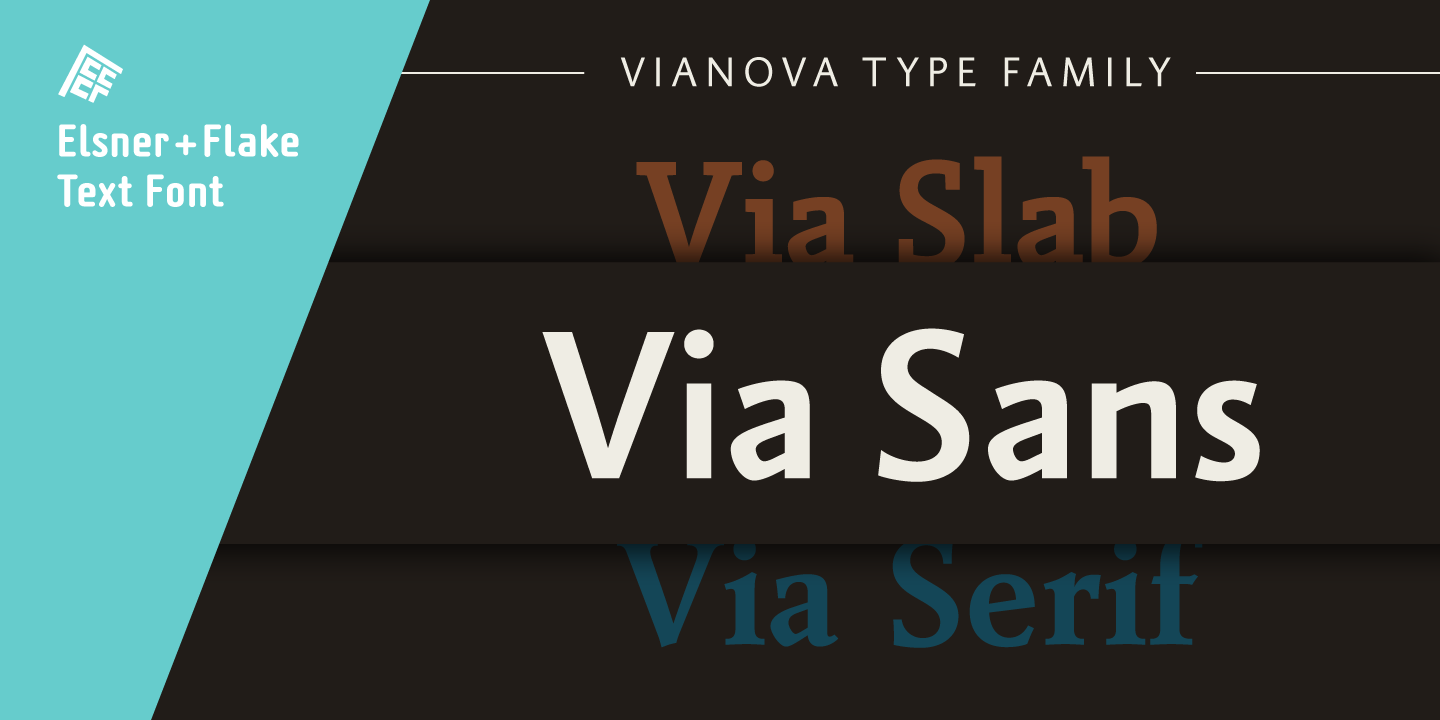
This innovative typeface is perfect for modern architecture firms, cutting-edge technology companies, contemporary design studios, innovation consulting, futuristic transportation, progressive healthcare brands, advanced manufacturing, sustainable energy solutions, modern educational institutions, forward-thinking corporations, digital transformation agencies, and next-generation lifestyle brands. The font's progressive design makes it ideal for projects that celebrate innovation, technological advancement, and the bold vision of organizations pioneering new pathways into the future.
Vianova Sans Pro Font is exciting because it embodies forward-thinking innovation and contemporary sophistication through its clean letterforms and future-inspired character structure. The font's geometric precision and modern proportions create an atmosphere of progress, technological excellence, and visionary thinking, making it perfect for brands that want to convey innovation, professionalism, and the cutting-edge appeal of advanced solutions. Its progressive personality ensures instant credibility while maintaining excellent readability across various contemporary applications.
The Vianova Sans Pro Font family includes multiple innovative variations: Light Vision, Regular Progress, Medium Innovation, Bold Future, and Black Revolutionary weights, each available in standard and condensed versions. Special modern editions feature technical alternates, innovation symbols, and contemporary ornaments that enhance the font's progressive appeal, providing designers with comprehensive tools for creating authentic forward-thinking communications.